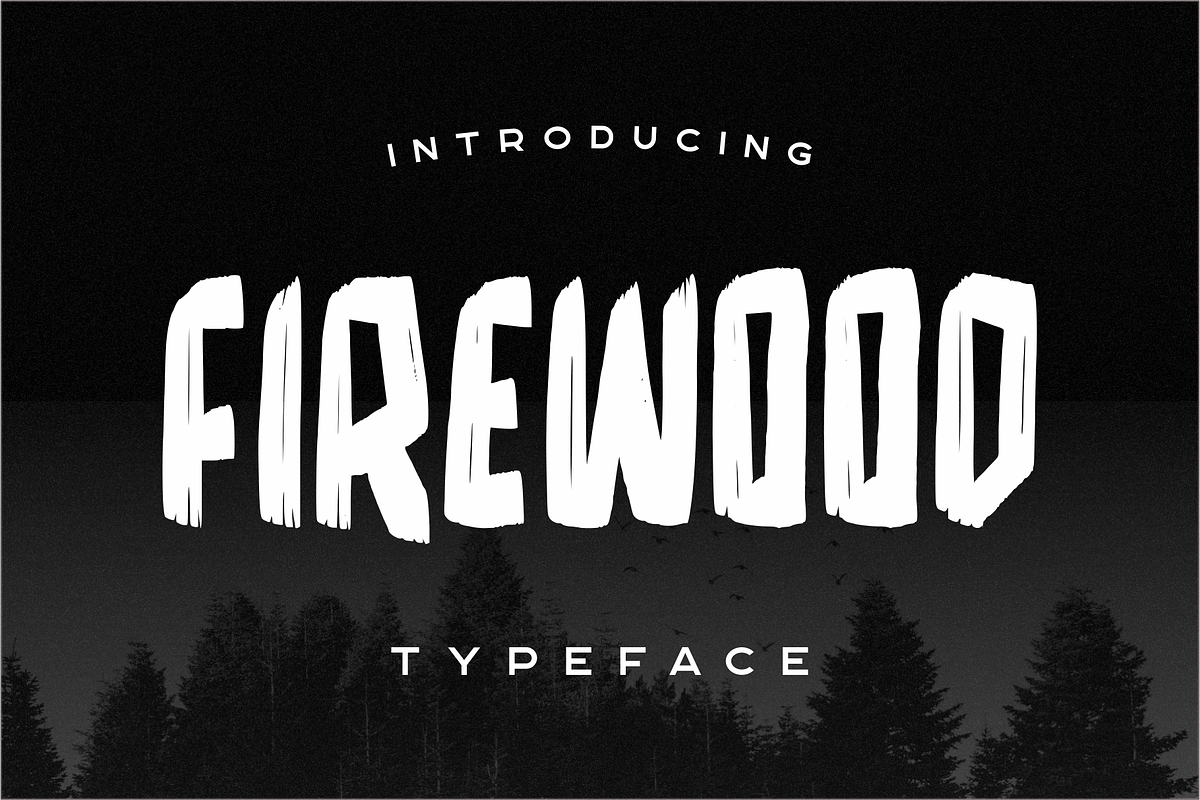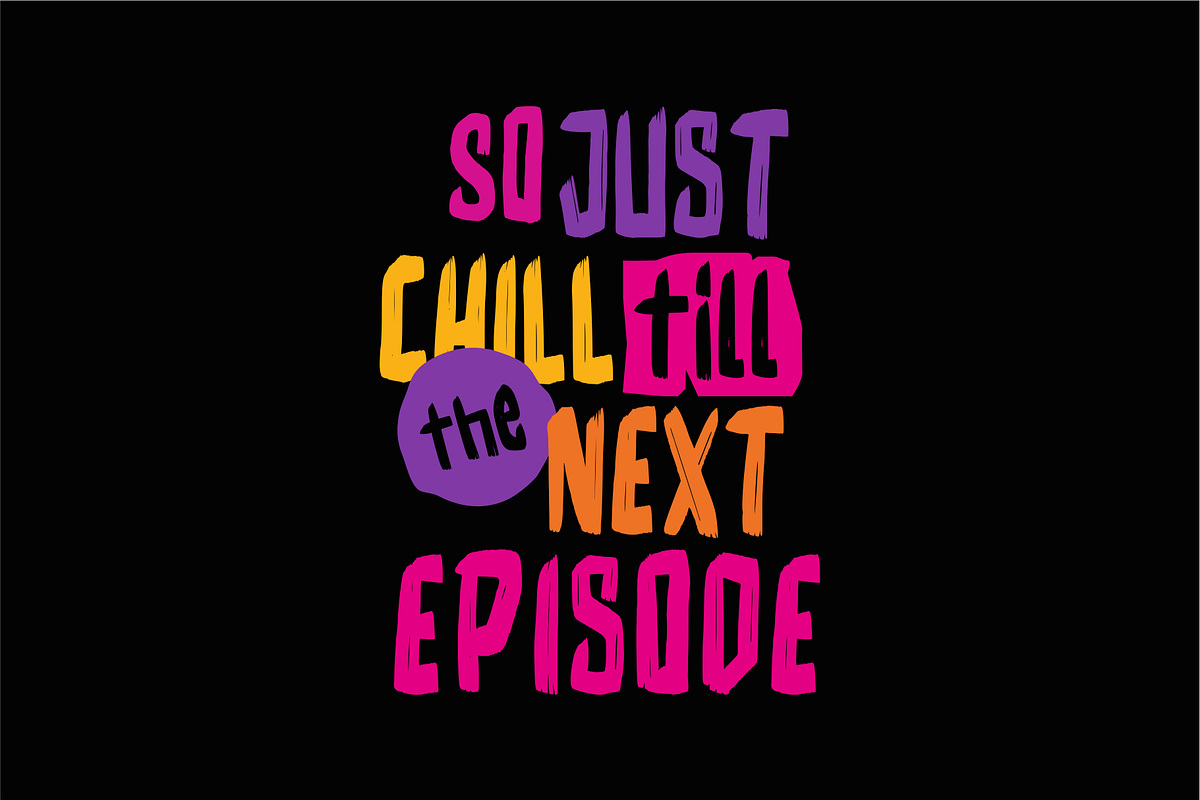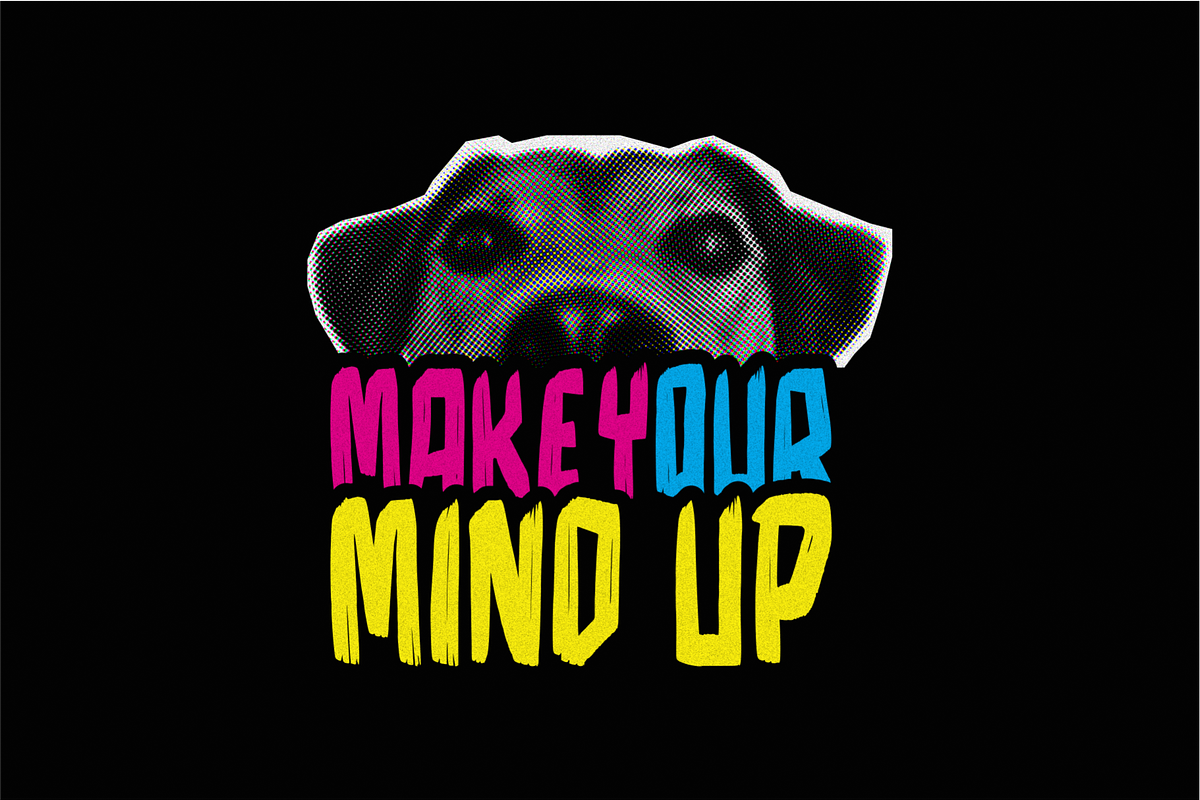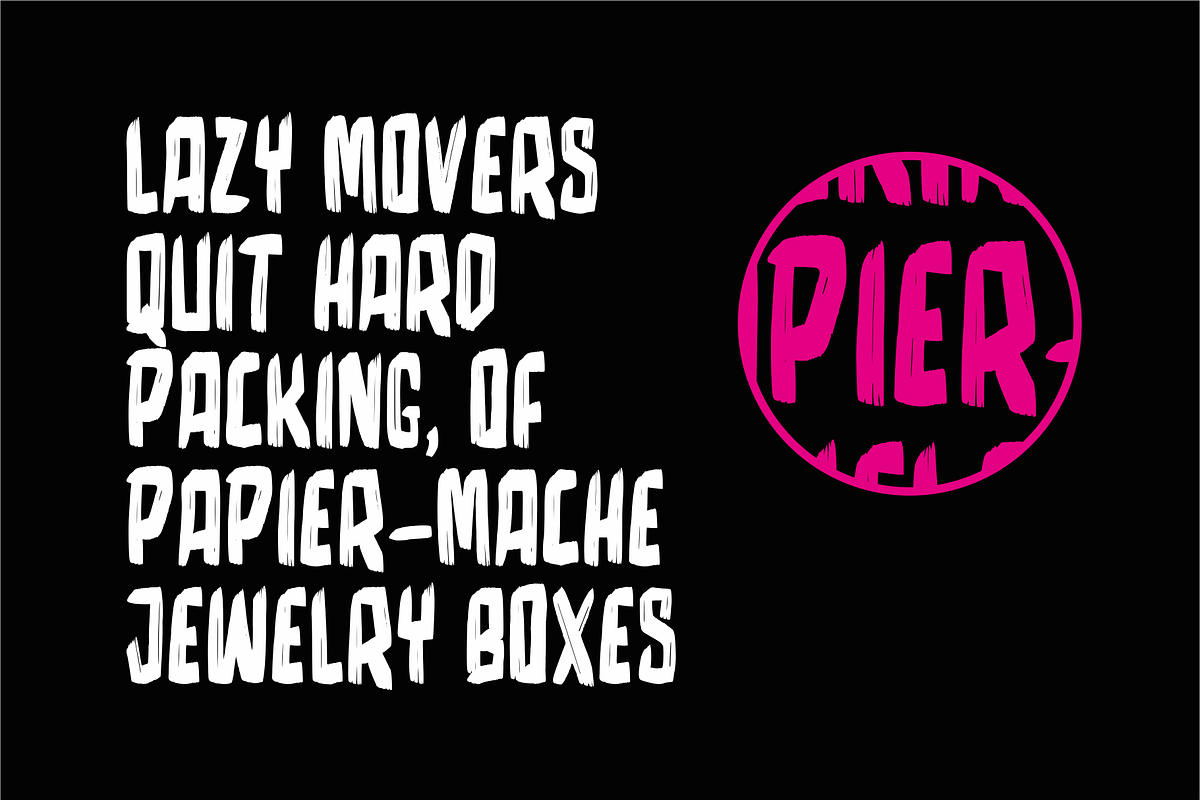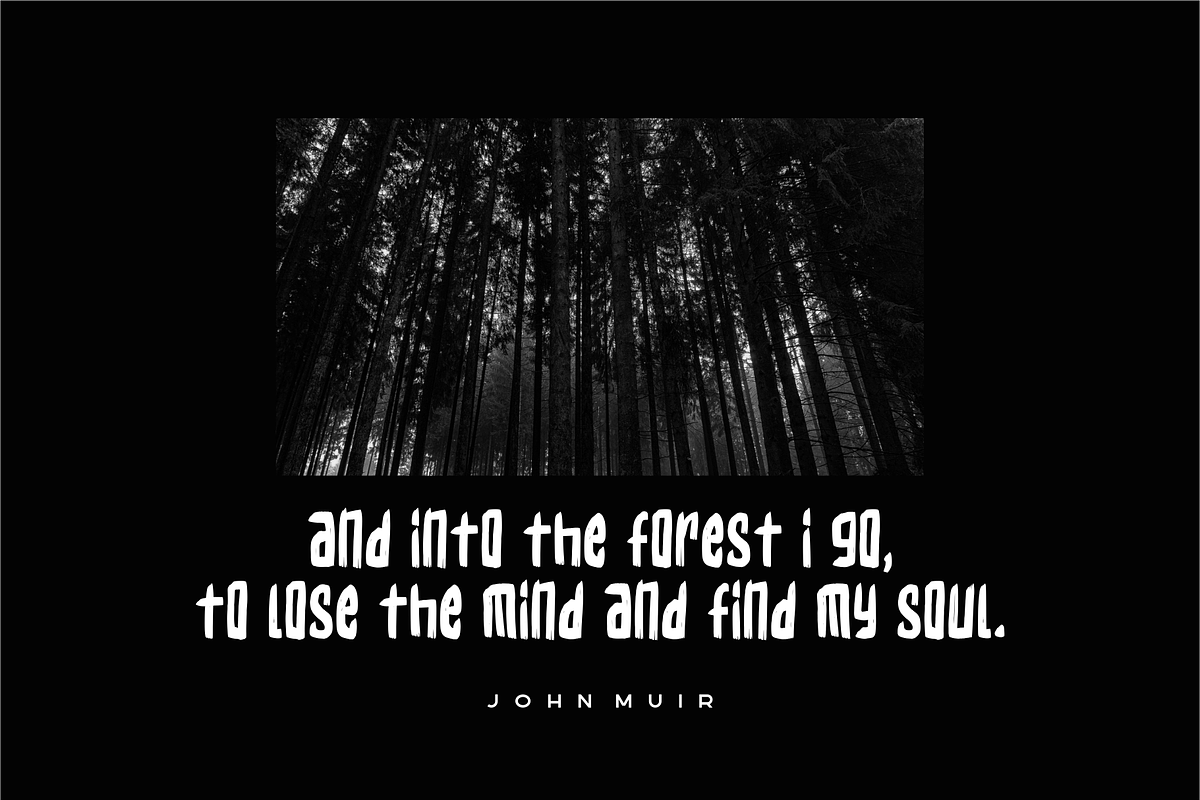
Firewood Typeface
FIREWOOD is font with rough wood style, this font is suitable for hand drawn logo style, cover titles, posters, invitations, advertising, label product and other design products.
Why Firewood Typeface is worth a look
Firewood Typeface by 24Design Studios fits naturally into Branding, posters, packaging, typography.